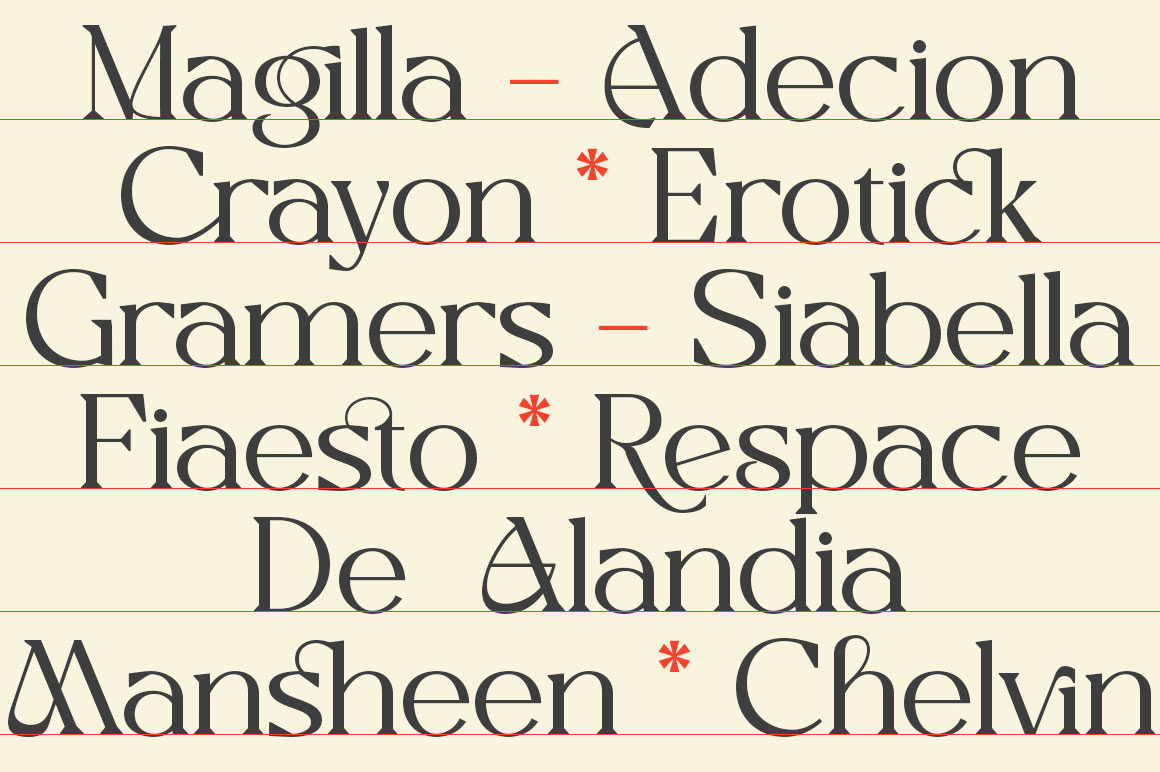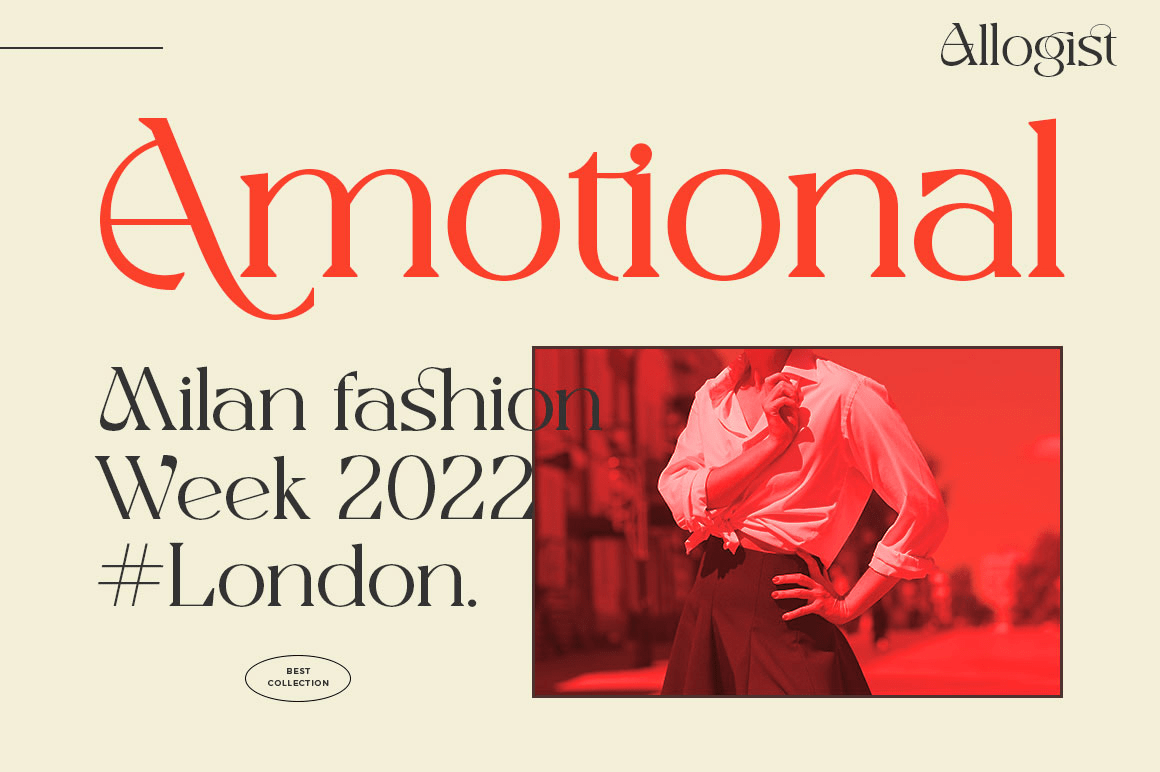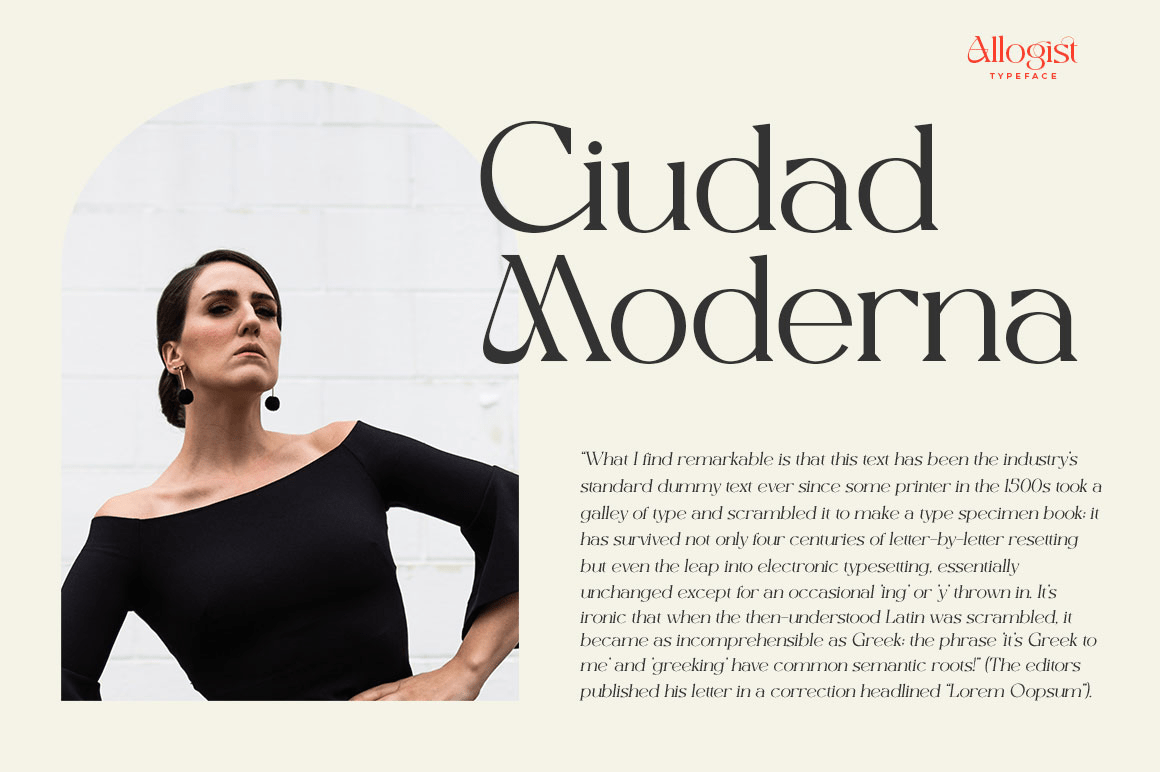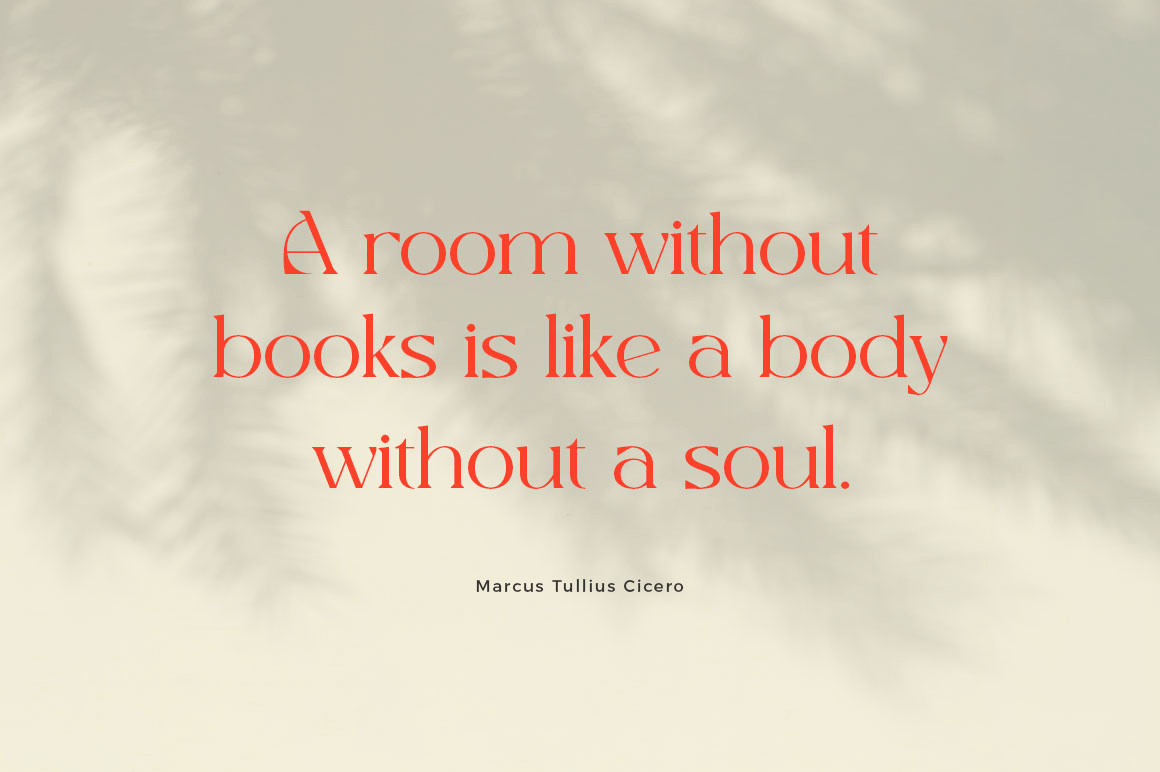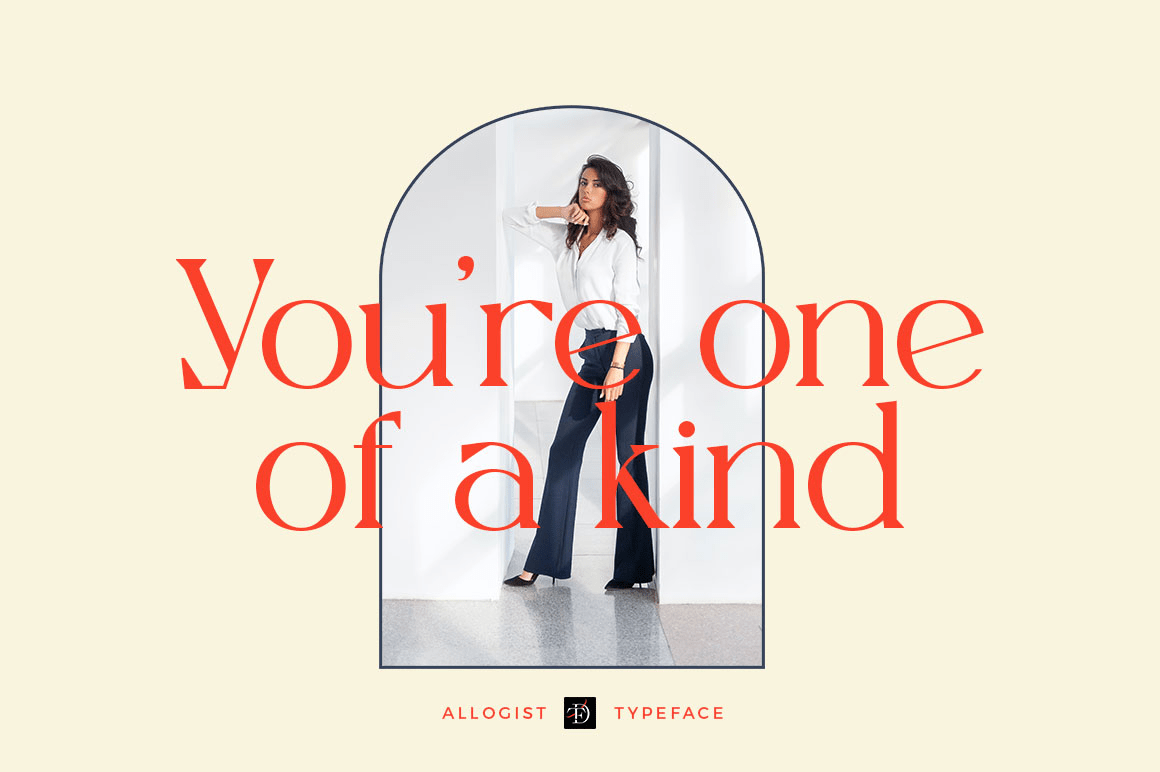
Introducing Allogist – a new elegant serif font that will add a touch of luxury and sharp diamond dots add a slick yet legible Persian style. This versatile font is perfect for editorial projects, magazine headers, logo designs, clothing branding, product…